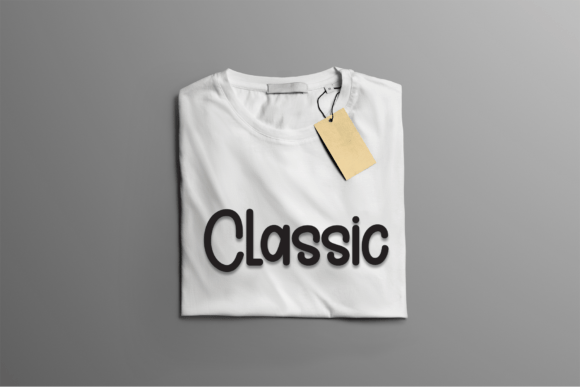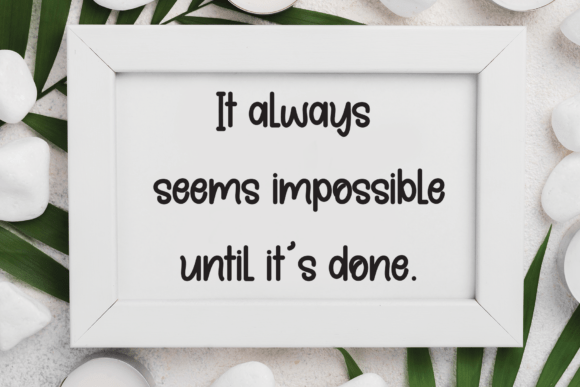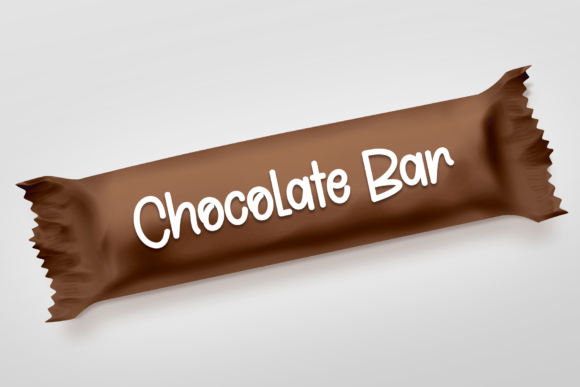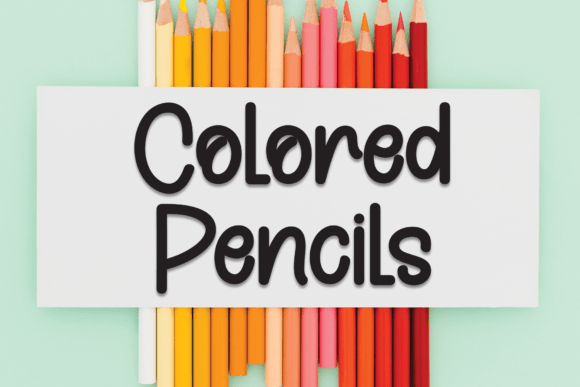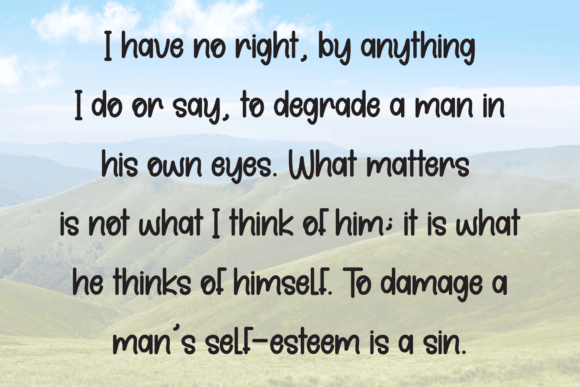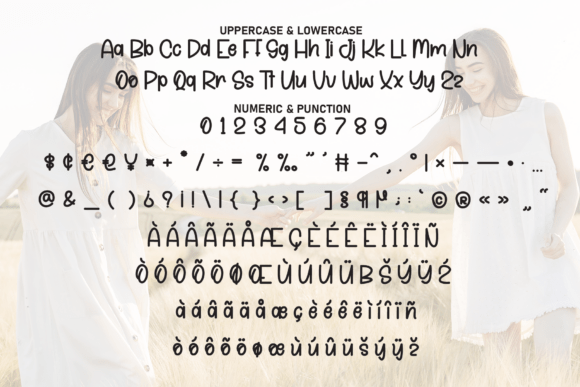
The Perfect Blend of Whimsy and Clarity: Introducing the Boho Together Font
Have you ever stumbled upon a font that instantly sparks creativity and makes you want to pour your heart onto the page? That’s exactly what happened when we discovered the Boho Together Font. Its effortless charm and clean structure have a way of bringing warmth and clarity to even the most mundane projects.
Designed to elevate your branding, headlines, and everyday designs, the Boho Together Font is a valuable addition to any designer’s toolkit. With its balanced letterforms offering readability and charm, every message feels genuine and inviting. Whether you’re crafting a logo, creating a social media campaign, or simply writing a heartfelt letter, the Boho Together Font is sure to bring a touch of personality and whimsy to your work.
Key Features of Boho Together Font
- Font Family: Boho Together
- Font Styles: Regular, Bold, Italic, Bold Italic
- Unique Characteristics: Handwritten, script font with a bohemian feel, suitable for creative and artistic projects
Boho Together Font Review
I recently had the chance to work with the Boho Together Font, and I must say, it’s a lovely addition to any design project. ✨ The font’s unique blend of bohemian and modern elements makes it perfect for creating a free-spirited, eclectic vibe.
- The font’s irregularities and asymmetries add a touch of organic feel to any text, making it perfect for creative projects like album covers, book covers, or fashion branding.
- The font’s weight and size flexibility make it easy to adjust to different design needs, from headings to body text.
- The Boho Together Font is also highly legible, even at smaller sizes, making it suitable for various design applications.
However, I did encounter a few limitations while working with the font. ⚠️ For instance:
- The font may not be the best choice for formal or corporate designs, as its unconventional style may not be suitable for more traditional or conservative branding.
- The font’s irregularities can sometimes make it difficult to read, especially in smaller sizes or when used extensively.
Overall, I think the Boho Together Font is a great choice for designers looking to add a touch of whimsy and creativity to their projects. While it may not be the best fit for all design needs, it’s definitely worth considering for the right project.
The Boho Together Font is perfect for:
- Blog and social media headers.
- Product labels and packaging.
Alternatives to Boho Together Font
Great Vibes is a script font that exudes a free-spirited, bohemian feel. It’s perfect for designers looking to add a touch of whimsy and elegance to their projects. Great Vibes is ideal for use in branding, packaging, and advertising materials where a unique and eye-catching font is required.
Comparison to Boho Together Font: Great Vibes is more elegant and refined, while Boho Together Font has a more rustic, eclectic feel. Great Vibes is also more versatile and can be used in a wider range of applications.
Alex Brush is a beautiful script font that combines a vintage feel with a modern aesthetic. It’s perfect for designers looking to add a touch of sophistication and elegance to their projects. Alex Brush is ideal for use in branding, packaging, and advertising materials where a unique and stylish font is required.
Comparison to Boho Together Font: Alex Brush is more refined and polished, while Boho Together Font has a more rugged, eclectic feel. Alex Brush is also more versatile and can be used in a wider range of applications.
Carolyna Pro is a modern script font that exudes a sense of elegance and sophistication. It’s perfect for designers looking to add a touch of luxury and refinement to their projects. Carolyna Pro is ideal for use in branding, packaging, and advertising materials where a unique and stylish font is required.